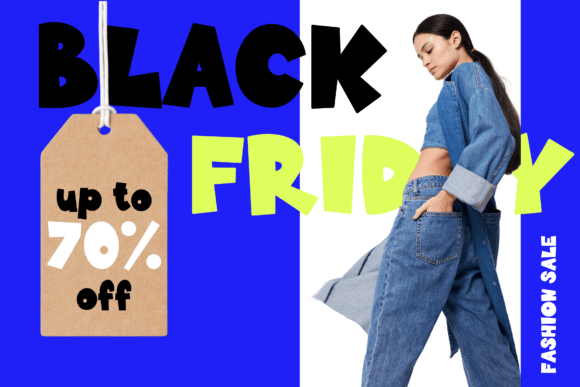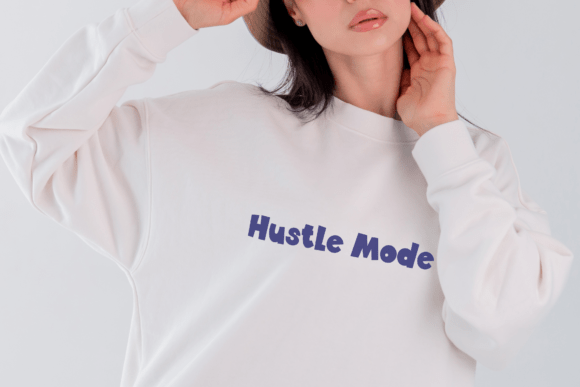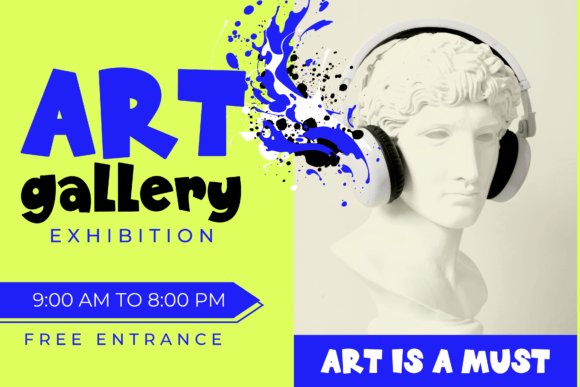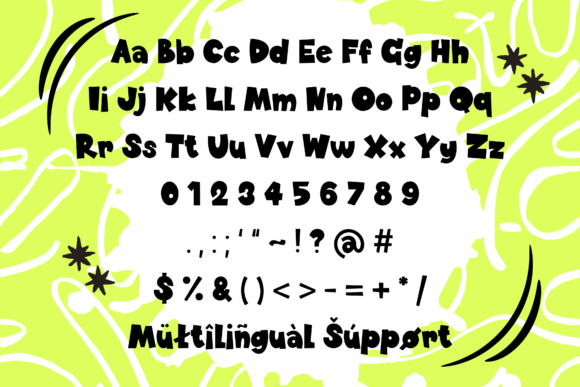
Unleash the Power of Black Friday with the Perfect Font
You’re brainstorming ideas for your Black Friday promotions, and suddenly, the perfect concept hits you – a bold, eye-catching design that screams ‘sale’ to your customers. But what font can help you bring this vision to life? Enter the BlackTaq Font, a game-changing typeface that’s perfect for making your marketing materials stand out.
As a designer, you’re always on the lookout for the perfect font to elevate your creations. The BlackTaq Font is a bold block font with a playful twist, making it ideal for a variety of advertising designs. Its chunky style and subtle charm make it a valuable asset for modern sales campaigns, social media ads, and anything that needs to shout with a smile.
Blacktaq Font Key Features
- Font Family: Blacktaq Font is a sans-serif typeface designed for modern and minimalist designs.
- Unique Characteristics: Features a unique blend of geometric and organic shapes, resulting in a distinctive and modern aesthetic.
Blacktaq Font Review
Overall, I think Blacktaq is a solid font choice for designers, but like any font, it has its strengths and weaknesses. Here are my honest thoughts on what works well and what doesn’t.
- Unique aesthetic: Blacktaq has a distinct, edgy feel that’s perfect for modern designs.
- Good for headlines: The font’s bold, sans-serif design makes it great for grabbing attention in headlines and titles.
- Highly customizable: Blacktaq is a highly customizable font, allowing designers to adjust the weight, width, and other parameters to suit their needs.
- May not be suitable for body text: While Blacktaq is great for headlines, it can be a bit too bold and overwhelming for large blocks of body text.
- Limited language support: Blacktaq may not support as many languages as other fonts, which can be a limitation for designers working with international clients.
- Can be difficult to read at small sizes: The font’s bold design can make it difficult to read at small sizes, which can be a problem for designers working on tight spacing or small-scale projects.
Overall, I think Blacktaq is a great font choice for designers who want a bold, modern look. However, it’s not suitable for all types of projects, and designers should be aware of its limitations before using it.
Practical Application Guide for Blacktaq Font
Tips for Getting the Most Out of Blacktaq Font
Use the Blacktaq font to add a touch of elegance and sophistication to your designs.
Pair it with bold colors and striking graphics to create a visually appealing effect.
Experiment with different font sizes and styles to achieve the desired level of emphasis.
Use the Blacktaq font for:
Headlines and titles in graphic designs
Alternatives to Blacktaq Font
Montserrat is a sans-serif font that is highly versatile and suitable for digital and print media. It is a popular choice for designers due to its clean and modern aesthetic. When to use: For headings, titles, and body text in modern and minimalist designs.
Comparison to Blacktaq Font: Montserrat has a similar modern feel, but it is more geometric and sans-serif, whereas Blacktaq Font is a script font with a more elegant and cursive feel.
Great Vibes is a beautiful script font that is perfect for adding a touch of elegance and sophistication to your designs. It is highly legible and suitable for a wide range of applications, from invitations to wedding stationery. When to use: For titles, headings, and body text in elegant and creative designs.